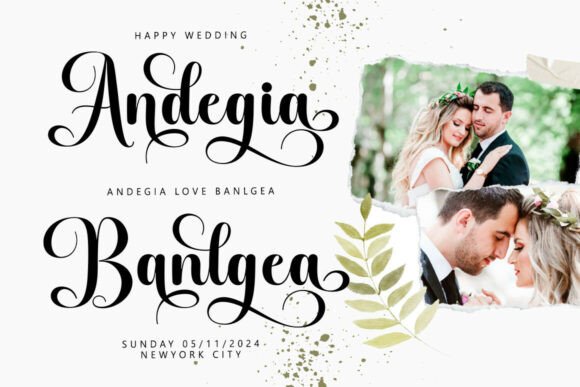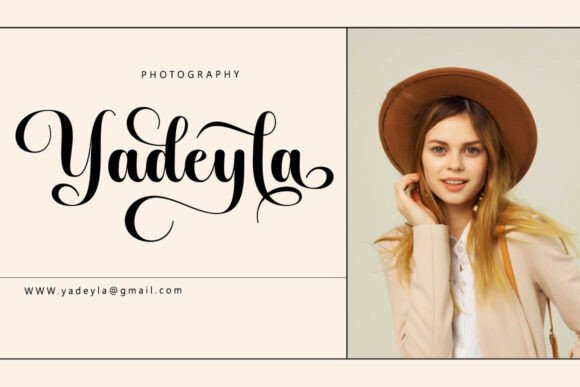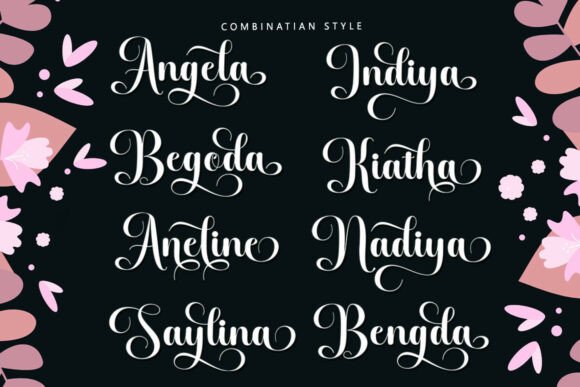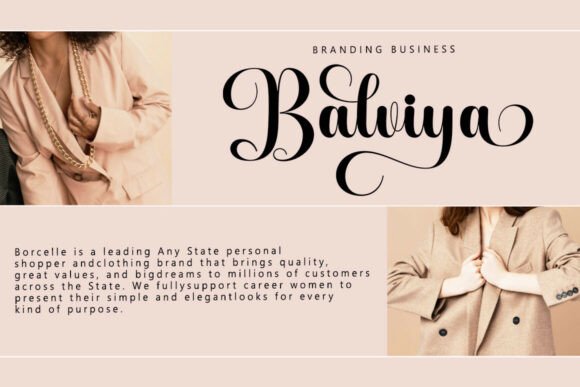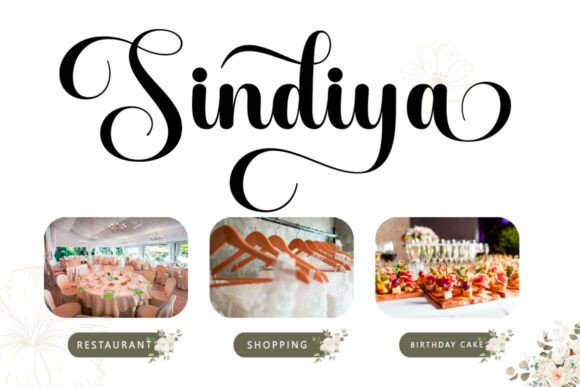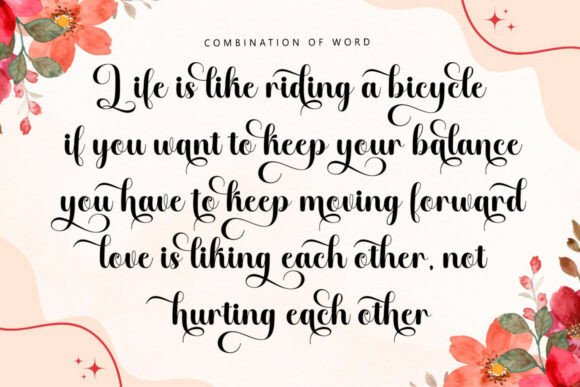
Baby Magnolia Font: Elevate Your Designs with Elegance and Romance
In the world of typography, few fonts capture the essence of elegance and romance as beautifully as the Baby Magnolia font. This stunning calligraphy font is a perfect blend of traditional calligraphy and modern style, making it an ideal choice for designers and crafters looking to add a touch of sophistication to their projects. In this article, we’ll explore the features, benefits, and uses of the Baby Magnolia font, and why it’s a must-have for anyone looking to elevate their designs.
What is Baby Magnolia Font?
Baby Magnolia is a calligraphy font that boasts beautiful alternate characters, carefully designed to convey an elegant and romantic style. Its delicate, clean, and feminine appearance makes it perfect for a wide range of applications, from formal invitations to fashion branding. The font’s classic style is both timeless and versatile, ensuring that your designs will remain stylish and relevant for years to come.
Key Features of Baby Magnolia Font
So, what makes Baby Magnolia font so special? Here are some of its key features:
- Uppercase and Lowercase Letters: The font includes both uppercase and lowercase letters, allowing you to create a wide range of designs and text styles.
- Alternate Characters: With beautiful alternate characters, you can add a touch of uniqueness to your designs and make them stand out.
- Ligatures: The font includes ligatures, which help to create a flowing and connected text style.
- Punctuation and Numbers: The font includes a range of punctuation marks and numbers, making it perfect for creating detailed designs and text.
- Multilingual Support: With multilingual support, you can use the font to create designs in multiple languages.
Uses of Baby Magnolia Font
The Baby Magnolia font is incredibly versatile, making it perfect for a wide range of applications, including:
- Invitations: Create beautiful and elegant invitations for weddings, parties, and other special occasions.
- Labels and Packaging: Use the font to create stunning labels and packaging for products, adding a touch of sophistication and elegance.
- Menus and Stationery: Create stylish menus and stationery for restaurants, cafes, and businesses.
- Logos and Branding: Use the font to create elegant and memorable logos and branding for fashion, beauty, and lifestyle businesses.
- Fashion and Makeup: The font’s glamorous and sensual style makes it perfect for fashion and makeup branding, advertising, and editorial design.
- Romance Novels and Magazines: Create beautiful and eye-catching book covers and magazine layouts with the Baby Magnolia font.
- Greeting and Wedding Cards: Use the font to create stunning greeting and wedding cards, adding a touch of elegance and romance.
Why Choose Baby Magnolia Font?
So, why should you choose the Baby Magnolia font for your designs? Here are just a few reasons:
- Elegant and Romantic Style: The font’s elegant and romantic style makes it perfect for creating sophisticated and eye-catching designs.
- Highly Legible: The font is highly legible, making it perfect for use in a wide range of applications, from body text to headings.
- Delicate and Clean: The font’s delicate and clean style makes it perfect for creating designs that require a touch of subtlety and sophistication.
- Feminine and Sensual: The font’s feminine and sensual style makes it perfect for fashion, beauty, and lifestyle branding and advertising.
| Font Name | Baby Magnolia Font |
| Author | queenopstudio |
In conclusion, the Baby Magnolia font is a stunning calligraphy font that is perfect for designers and crafters looking to add a touch of elegance and romance to their projects. With its beautiful alternate characters, delicate and clean style, and highly legible design, this font is sure to become a favorite in your collection. Whether you’re creating invitations, labels, menus, logos, or any other type of design, the Baby Magnolia font is a versatile and stylish choice that is sure to impress.